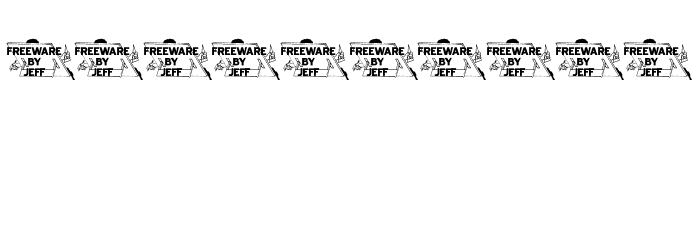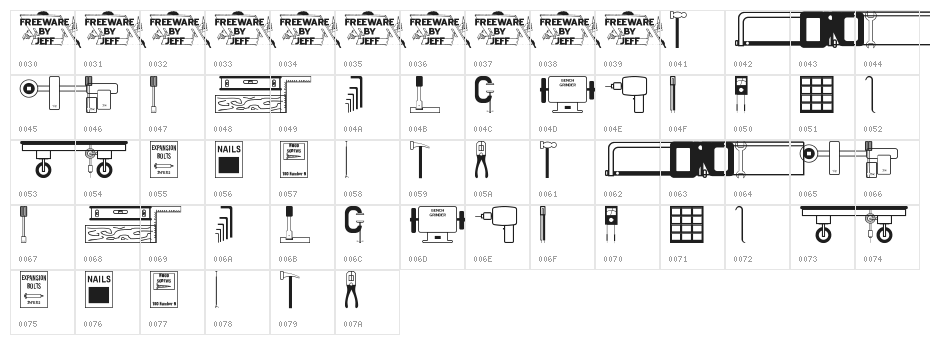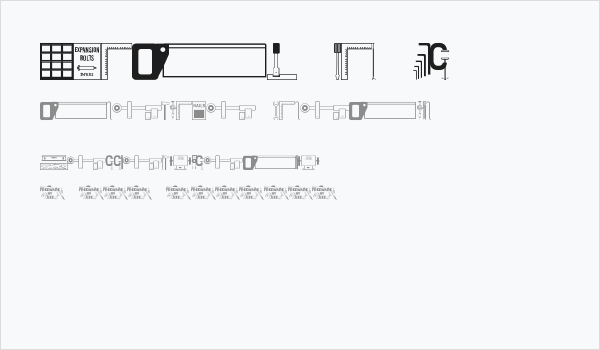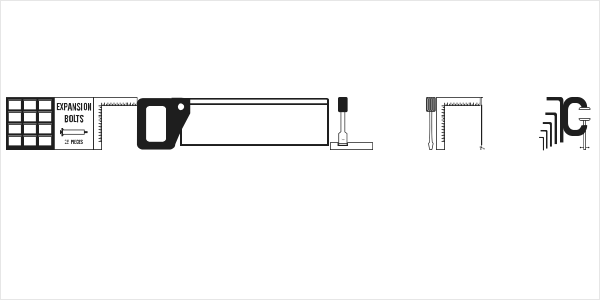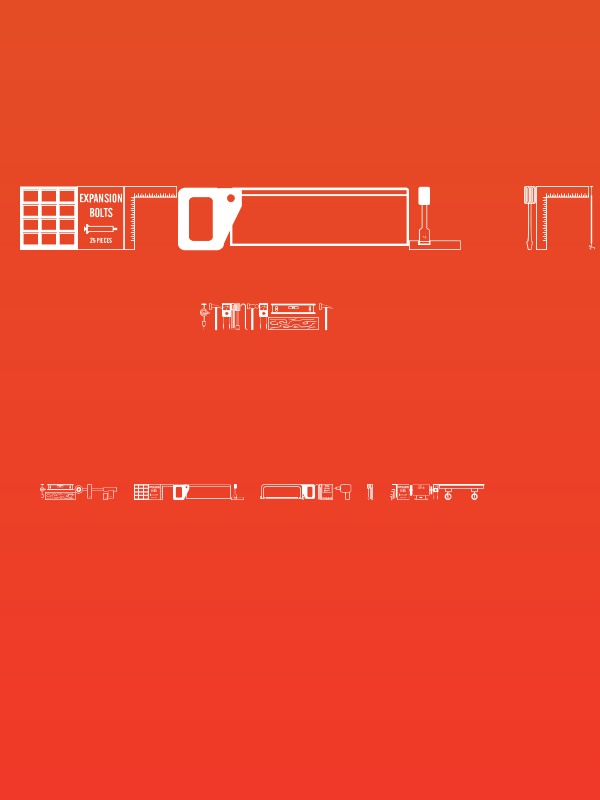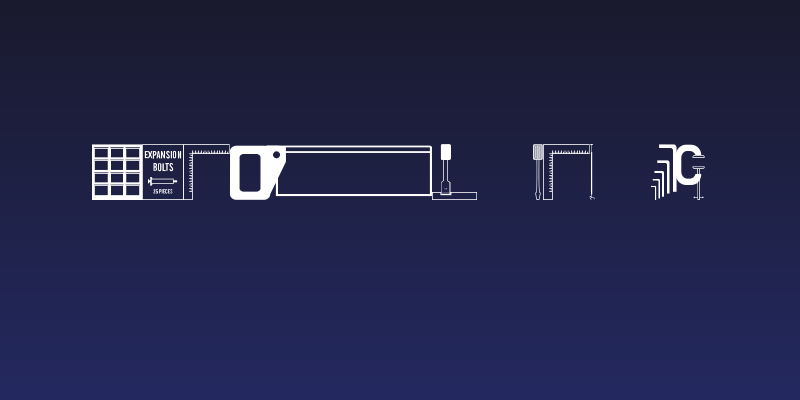
Quick Fix JL Font
Quick Fix JL Description
A highly decorative and illustrative font composed of detailed tool and hardware illustrations forming each character, with a strong mechanical and industrial theme. The glyphs are complex, with each letter or symbol represented by a unique arrangement of workshop tools and equipment.
| Overall Style | Decorative, Industrial, Illustrative |
| Use Case | Logos, Headlines, Posters, Themed graphics |
| Proposed Projects | Posters for hardware stores, DIY event flyers, industrial-themed branding, educational materials about tools, novelty signage. |